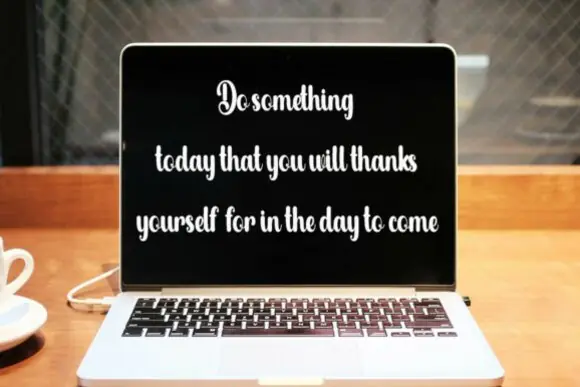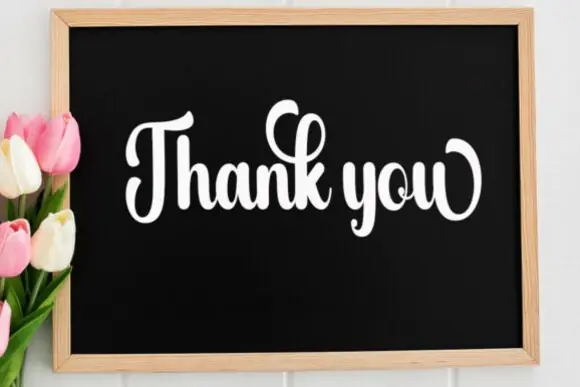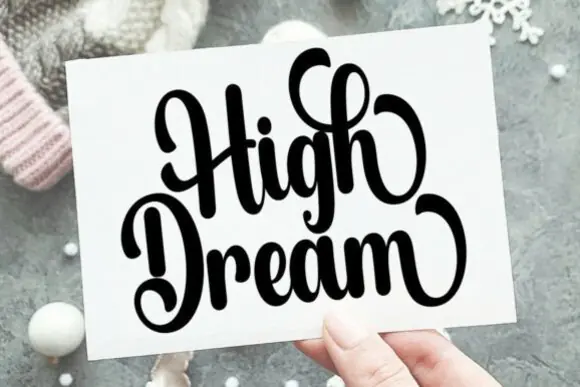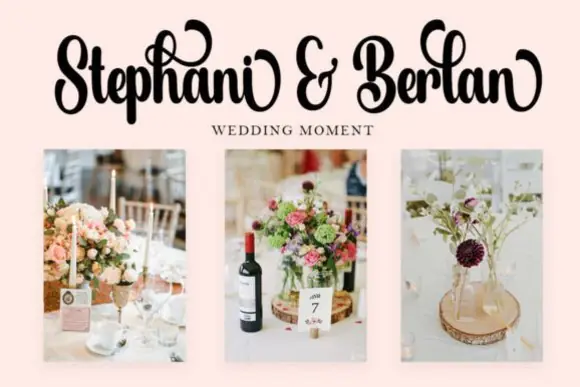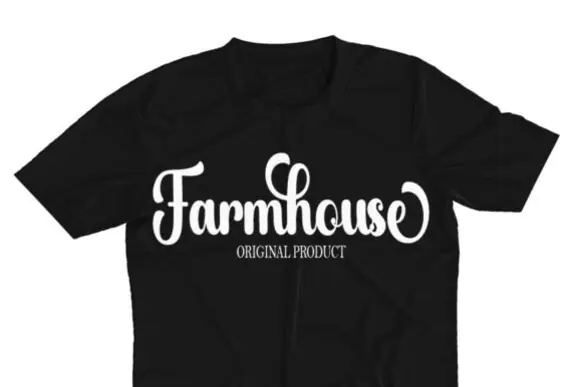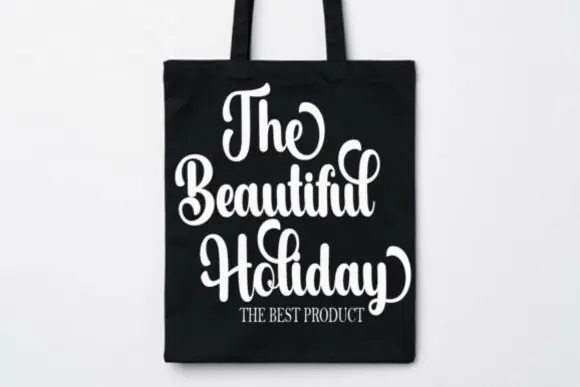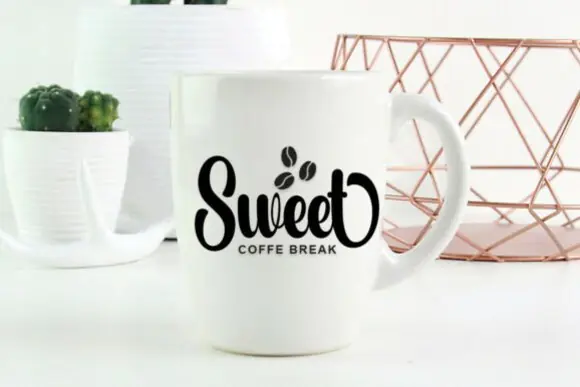
Stylish Alphabet Elegant Font – Soft Feminine Typeface for Branding, Logos, Wedding Invitations, Titles, Signs, Labels, Packaging, Social Media Graphics & Luxury Creative Designs
Create soft, graceful, and elegant designs with Stylish Alphabet Font, a beautiful feminine typeface designed to elevate your creative projects with refined strokes and a polished visual style. Its elegant letterforms make it perfect for designs that need a classy, stylish, and sophisticated appearance.
This font is ideal for branding, logo design, wedding stationery, invitations, titles, signs, product labels, packaging, greeting cards, boutique designs, fashion graphics, social media posts, printable designs, and luxury-themed creative projects. Its soft and graceful personality helps your text feel more premium, romantic, and visually appealing.
Whether you are designing wedding invitations, feminine brand identities, beauty product packaging, stylish signs, elegant labels, or social media graphics, Stylish Alphabet Font brings a smooth and graceful touch to your work. It is especially useful for designers, crafters, small business owners, wedding creators, branding specialists, and digital product sellers who want a font that feels elegant, soft, and beautifully refined.
Branding, logos, wedding designs, invitations, titles, signs, labels, packaging, boutique designs, greeting cards, fashion graphics, beauty products, social media posts, printable wall art, luxury designs, feminine projects, and elegant typography layouts.
• Soft and elegant font style
• Graceful strokes with a feminine touch
• Perfect for branding, logos, and wedding designs
• Great for titles, signs, invitations, and labels
• Adds a classy and refined look to creative projects
• Suitable for digital, printable, and commercial design work
• Ideal for luxury, romantic, and boutique-style designs